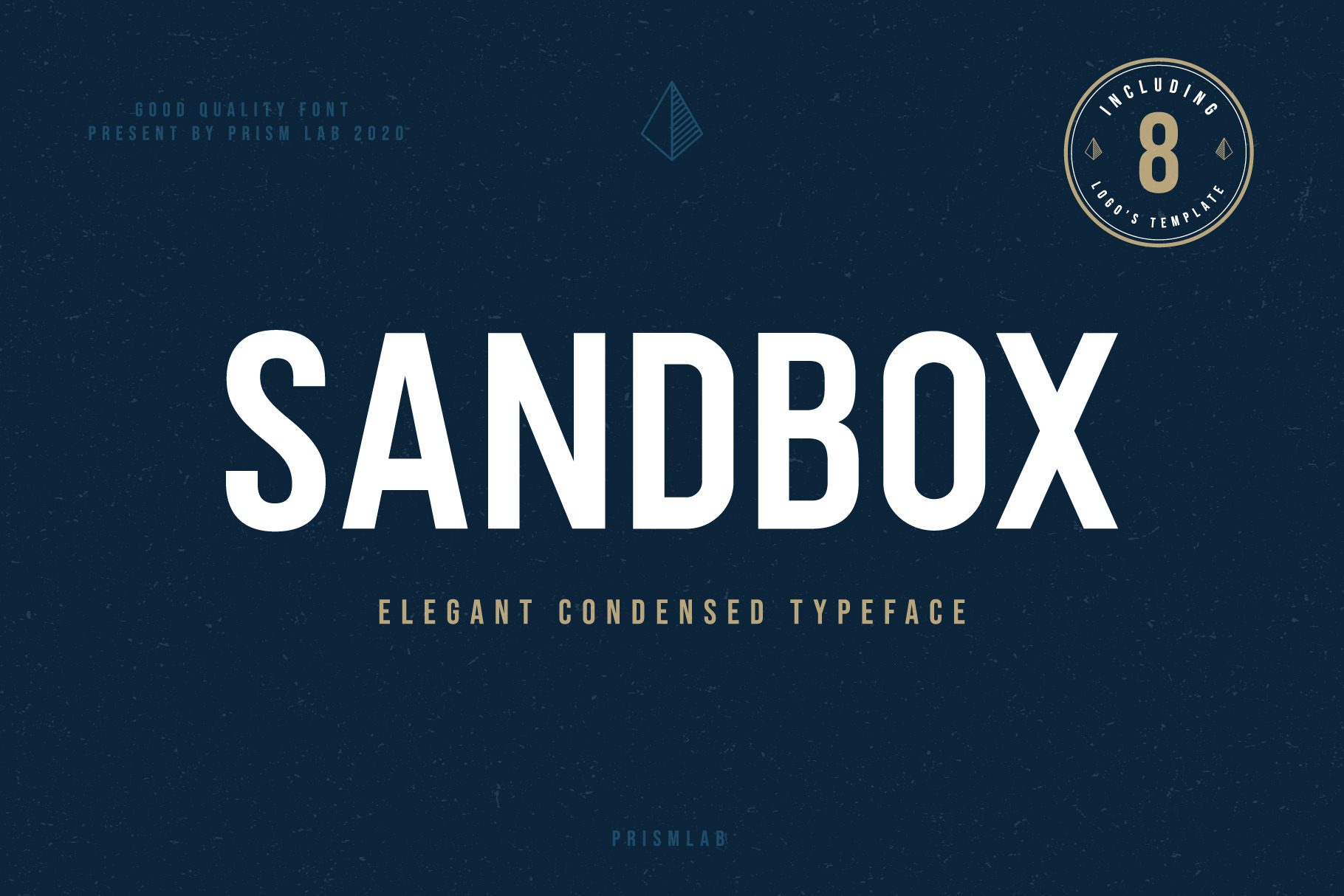
Sandbox | An Elegant Sans Typeface
Sandbox Is A Condensed Sans Typeface Inspired By Strong And Powerful Character. Bold And Sharp With Smooth Textures. Suitable With Your Business And Modern Company.
- Sandbox Regular .Sharp and Edgy
- Sandbox Italic .Thin and Playful
- Sandbox Bold .Strong and Powerful
- Sandbox Bold Italic .Thick and Elegant